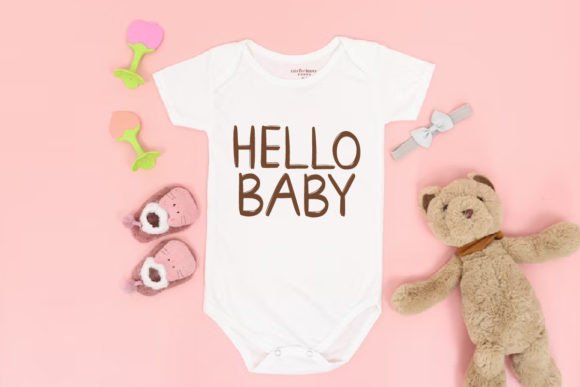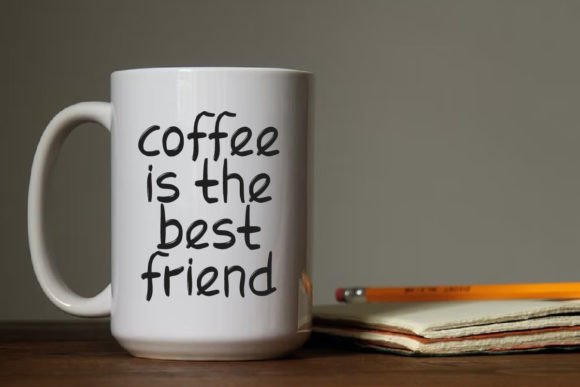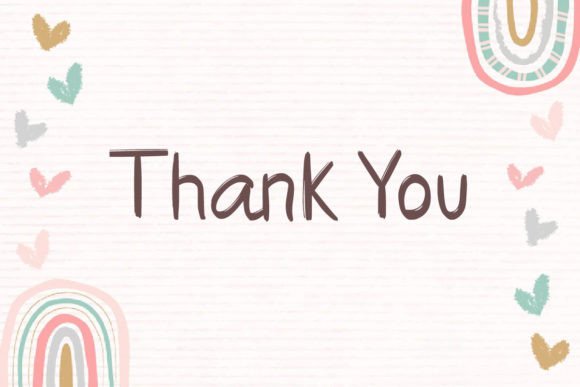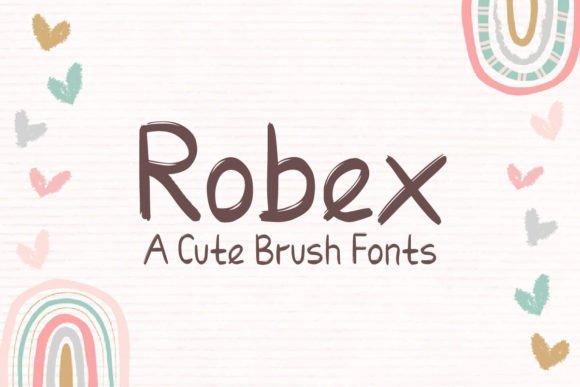
Introduction to Robex Font
Robex is a charming brush font.
Enjoy the versatility of this cute typeface by using it for a wide range of design projects – posters, covers, sublimation projects, fabric prints, cards, and many more .
Robex Font offers exceptional quality and versatility, making it a valuable addition to your design toolkit. Whether you’re creating for personal projects or commercial use, Robex Font delivers professional results.